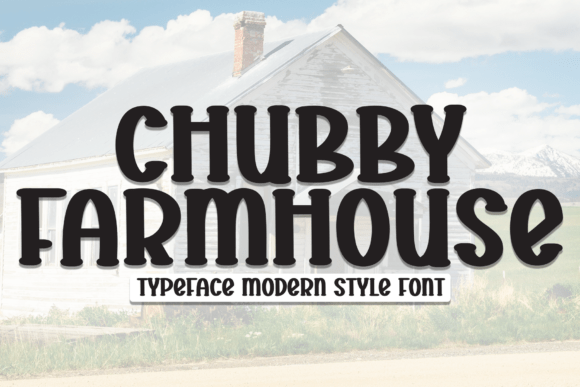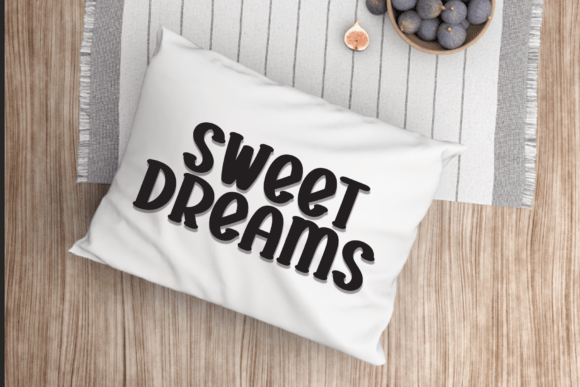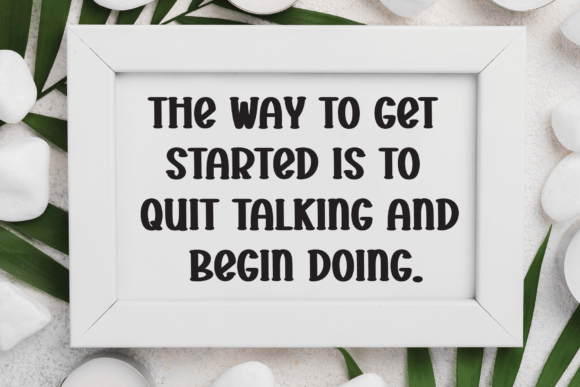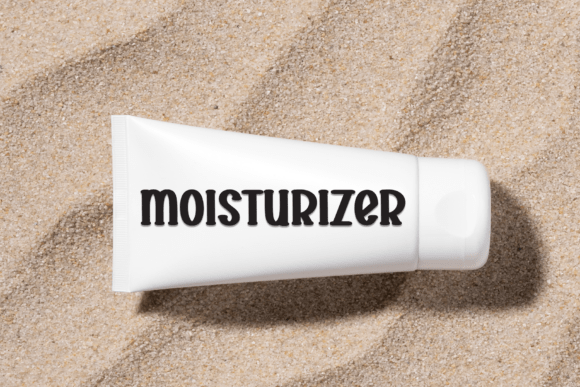
Chubby Farmhouse Font
About the Chubby Farmhouse Font
Step up your design game with Chubby Farmhouse Font, a font that exudes confidence and style. Make a statement with this font, a confident and stylish typeface that blends hand-lettered charm with eye-catching thickness. Perfect for logos, headlines, t-shirts, social media posts, and packaging, this font commands attention while keeping a fun, friendly vibe. Its dynamic strokes and smooth curves give every design a bold personality and a modern handwritten feel.
Chubby Farmhouse Font Usage Examples
Chubby Farmhouse Font Example